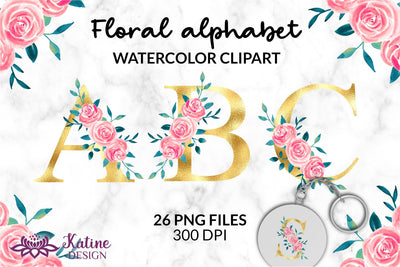
Gold foil floral alphabet clipart monogram letters, flower alphabet, alphabet clipart letters clipart, monogram alphabet, floral font, alphabet letters, printable alphabet, wedding letters, letters with flowers
Gold foil floral alphabet clipart monogram letters, flower alphabet, alphabet clipart letters clipart, monogram alphabet, floral font, alphabet letters, printable alphabet, wedding letters, letters with flowers. Png Files for Sublimation and Graphic Design